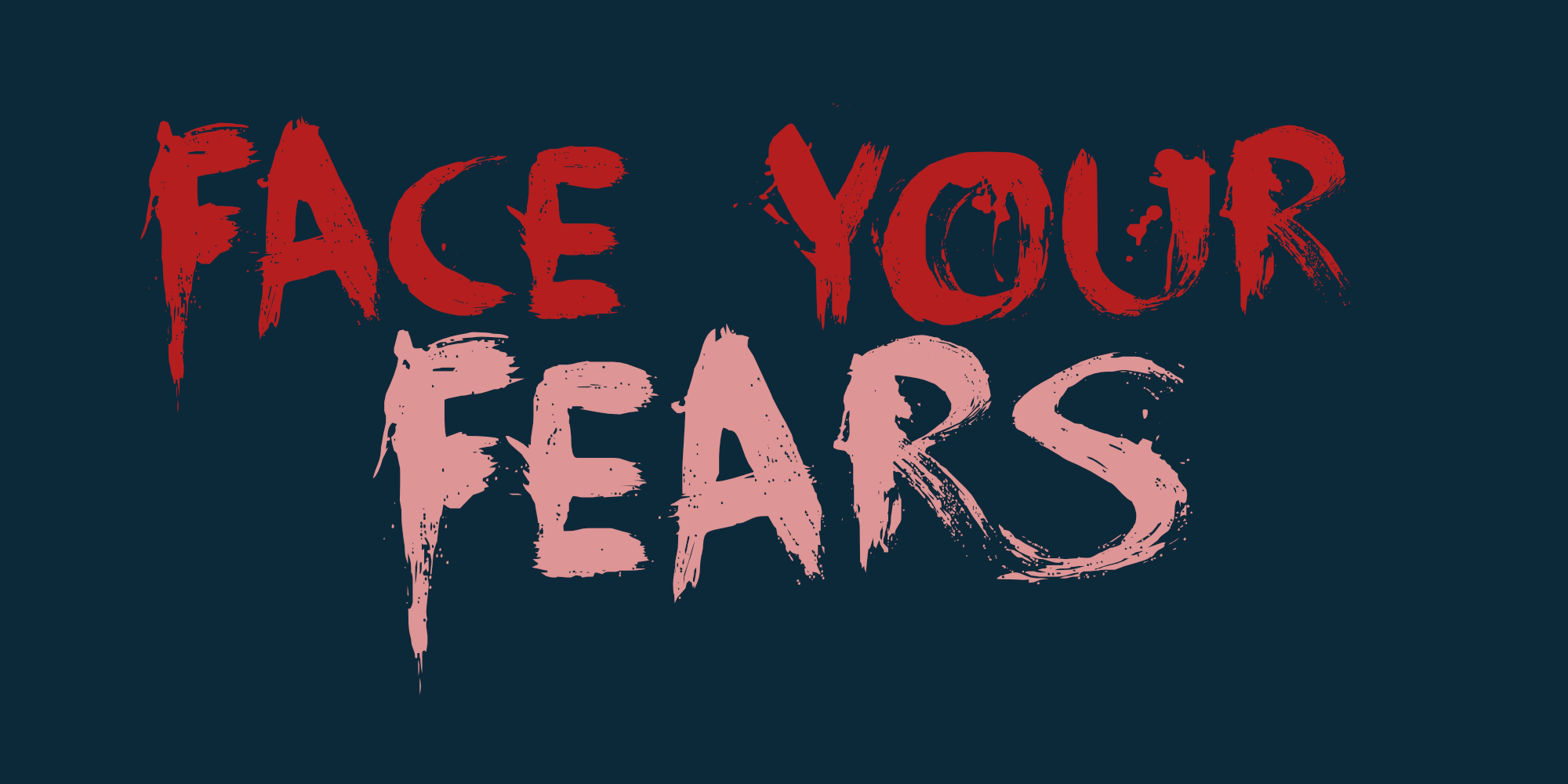
Face Your Fears By Brush, Metal, Spooky June 21, 2025 Face Your Fears was created using a brush, paint and ink and a lot of paper. Due to the horror-like nature of Face Your Fears, the font looks great on websites, games and – of course – halloween cards. Myfonts Fontspring Font Bros Fonthaus Monotype YWFT